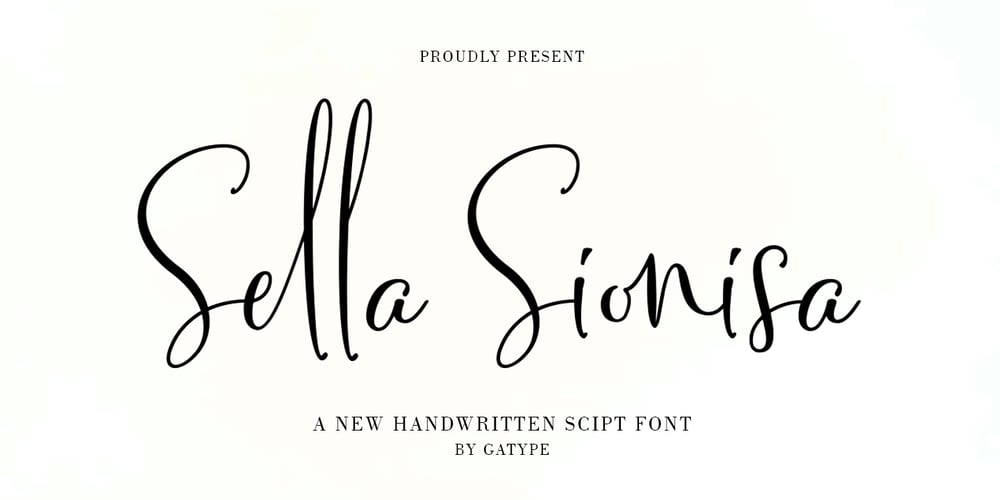
Sella Sionisa
Sella Sionisa font
Sella Sionisa Font Family was designed by khaidir and published by Gatype. Sella Sionisa contains 1 styles and family package options. Sella Sionisa is an elegant smooth script font. With bold contrasting strokes, a playful character with a bit of binder and alternatives. To give you extra creative work. This font is great for logo esigns, Social Media, Movie Titles, Book Titles, short text even long text fonts and is great for your secondary text fonts. Create stunning masterpieces with the Sella Sionisa font. contains a full set of lowercase and uppercase letters, a wide variety of punctuation marks, numbers, and multilingual support. Alternative characters are divided into several Open Type features such as ,Alternative Style. The Open Type feature can be accessed using intelligent Open Type programs such as Adobe Illustrator, Adobe InDesign, Adobe Photoshop version of Corel Draw X, and Microsoft Word. And this Font has provided PUA unicode (custom coded font). so that all alternative characters can be easily accessed in full by a craftsman or designer.Thank you for your purchase.